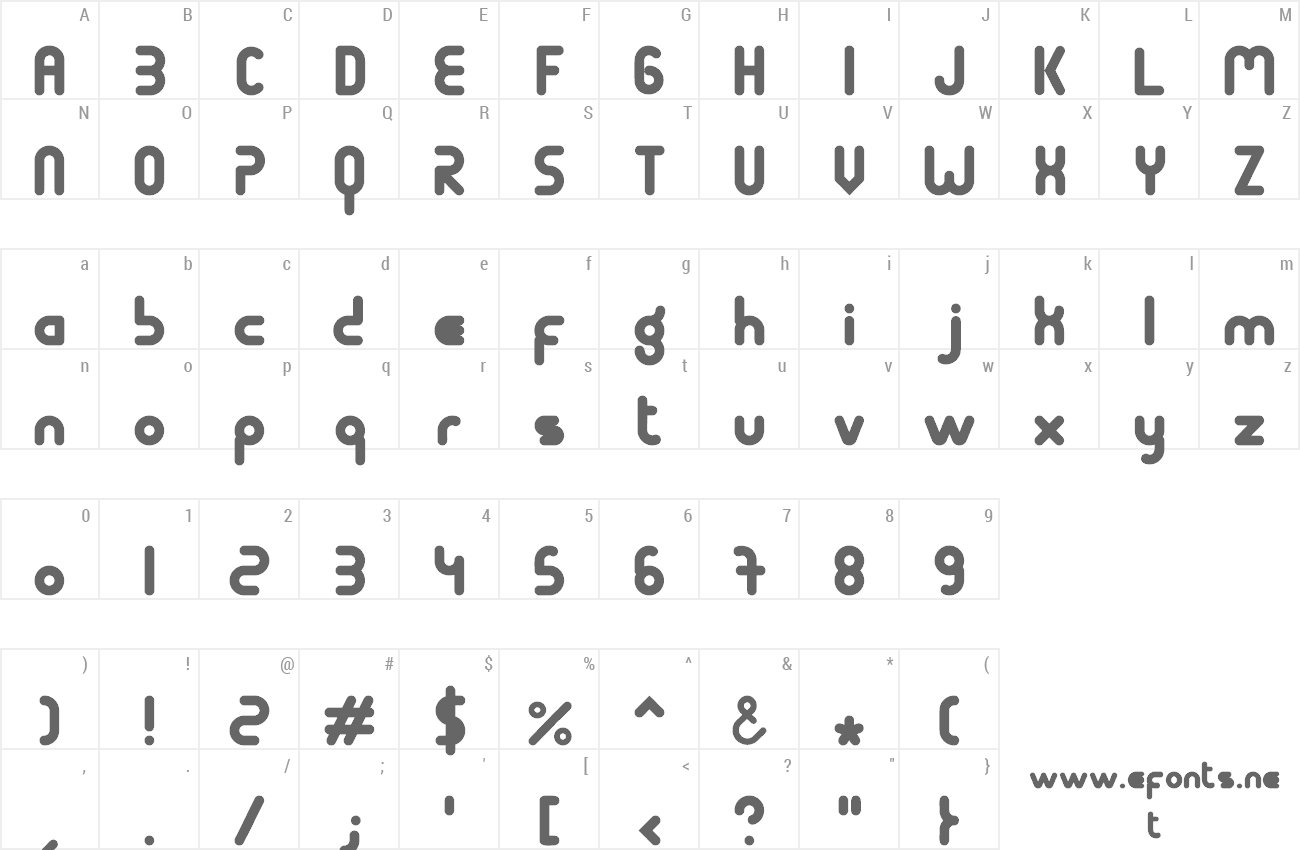
| Font name: | Terondaremorena |
| Author: | Juan Sebastián Rodríguez-Moranta |
| Note by Juan Sebastián Rodríguez-Moranta | |
| The source named "terondarémorena", with some humor and in homage to finish his round of glyphs. The typography is built from the module of the "n" and not hidden at any time, its modular nature. Its architecture allows you to connect and disconnect the pieces to get new and probably unexpected expressive resources. |